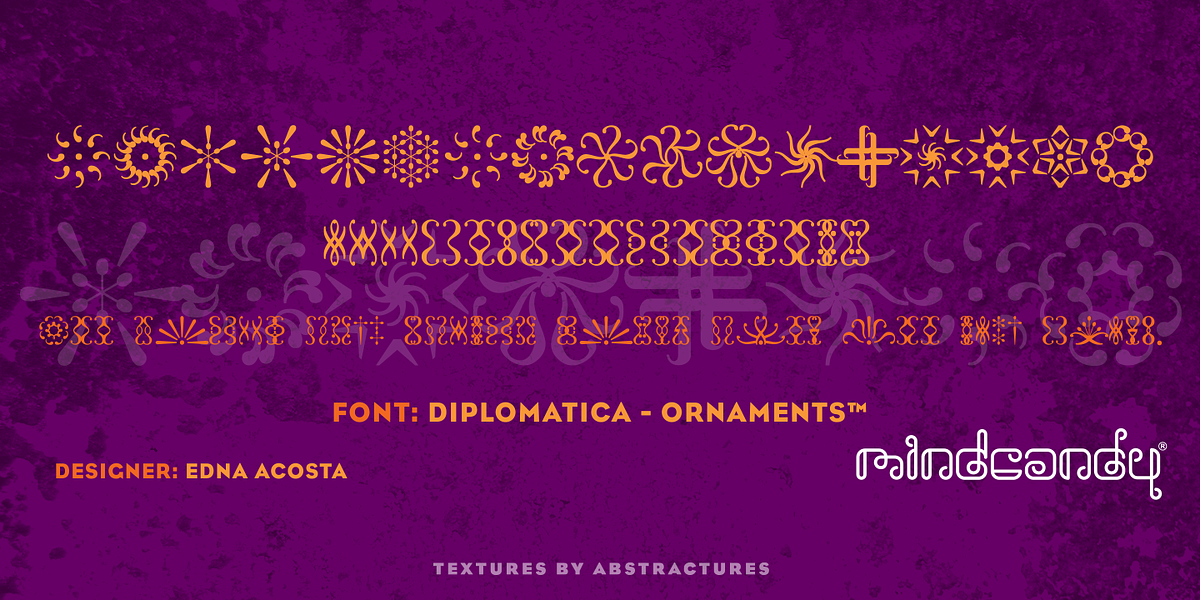
Diplomatica Ornaments™
This dingbat font, designed by Edna Acosta, offers a variety of decorative symbols suitable for adding playful elements to illustrations and graphic design projects.